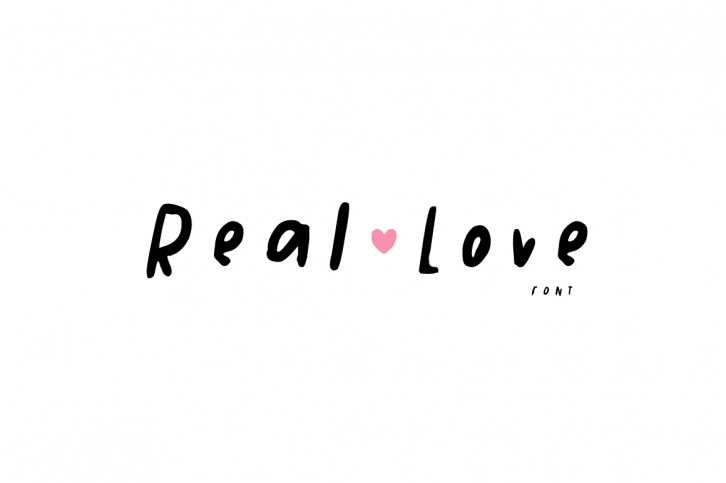
Real Love Hand Drawn is a gorgeous font that was realeased on July 16, 2019. The font can be used in many style contexts and design environments. Perfect for invitations, magazines, websites, logos, and more! It was designed by becdesign and the file size is 17.32 MB. Thanks for checking out this font!